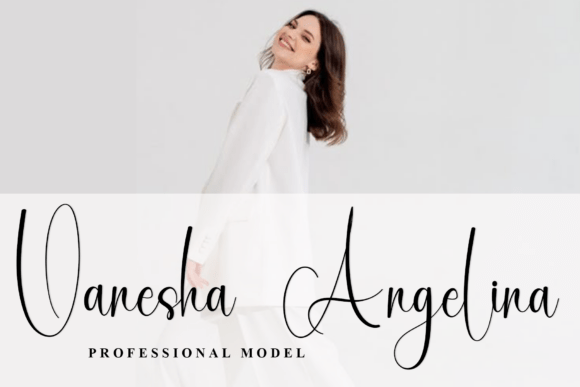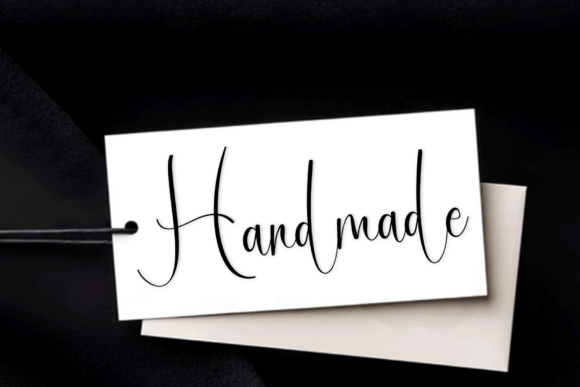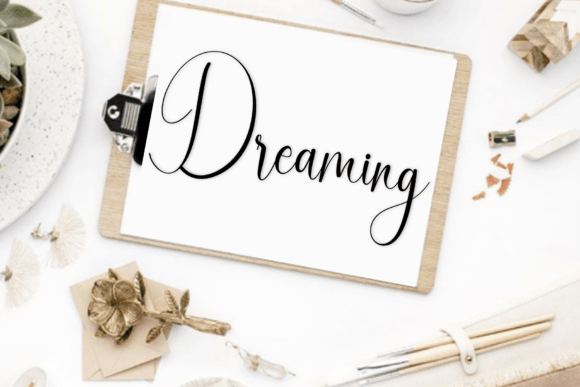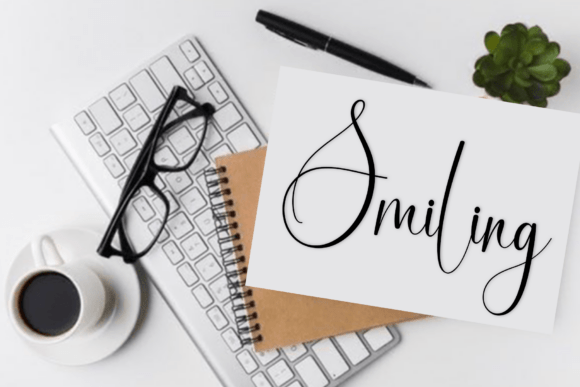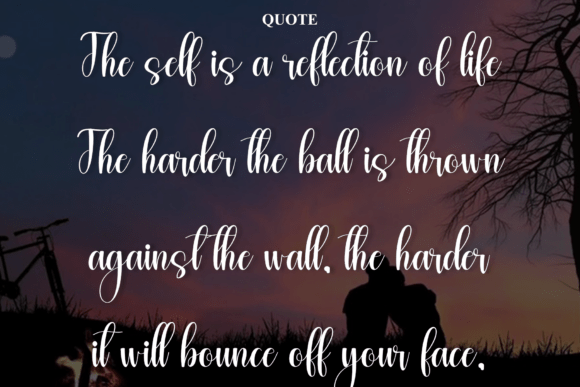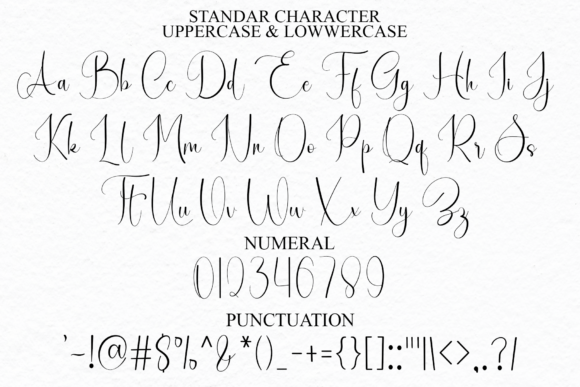
Unwrapping the Magic of the Holiday Season: Introducing Autography Font
As the snowflakes start to fall and the twinkling lights begin to sparkle, we’re reminded of the joy and wonder that comes with the holiday season. There’s something special about this time of year, and for designers, it’s the perfect opportunity to add a touch of festive flair to their work. Whether you’re creating greeting cards, gift tags, or holiday-themed projects, the right font can make all the difference.
That’s where the Autography Font comes in – a merry and enchanting typeface that captures the essence of the holiday season. With its decorative elements and whimsical flair, this font adds a touch of magic to your designs, making them truly unforgettable. As a valuable addition to any designer’s toolkit, the Autography Font is a must-have for anyone looking to bring a cheerful and nostalgic ambiance to their work.
Autography Font Key Features
- Font Family: Autography is a unique, handwritten font that comes in two styles: Regular and Script.
- Character Set: Includes a wide range of characters, including Latin, Cyrillic, and Greek alphabets, as well as punctuation and symbols.
- Unique Characteristics: Features a natural, handwritten feel with varying line widths and subtle flourishes, perfect for creative and artistic designs.
Designer Review: Autography Font
Overall, I think Autography Font has a lot going for it ✨. The first thing that caught my attention was its unique, handwritten feel. It’s perfect for projects that require a more personal touch, like invitations or social media graphics. The font also has a wide range of weights and styles, making it versatile and easy to use.
- Unique, handwritten feel that adds a personal touch
- Wide range of weights and styles for versatility
- Perfect for projects that require a more creative approach
However, I do have a few concerns ⚠️. The font can be quite busy and overwhelming, especially when used in large quantities. It’s also not the most legible font, which can make it difficult to read for certain audiences. Additionally, the font’s unique feel can sometimes come across as unprofessional, which may not be suitable for all types of projects.
In conclusion, Autography Font is a great choice for designers who want to add a personal touch to their projects. However, it’s essential to use it thoughtfully and in moderation to avoid overwhelming the viewer. With a little creativity and restraint, this font can be a real showstopper.
For the best results, use Autography font in conjunction with bold or italic text to create contrast and visual interest.
Experiment with different font sizes and colors to make your design stand out.
Autography font is ideal for:
Invitations and event cards
Personalized gift tags and cards
Stationery and letterheads